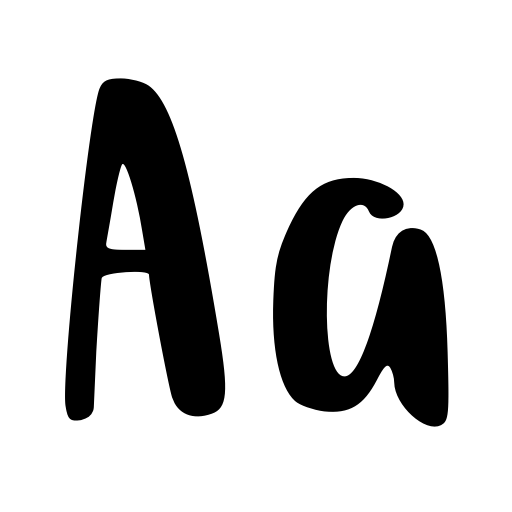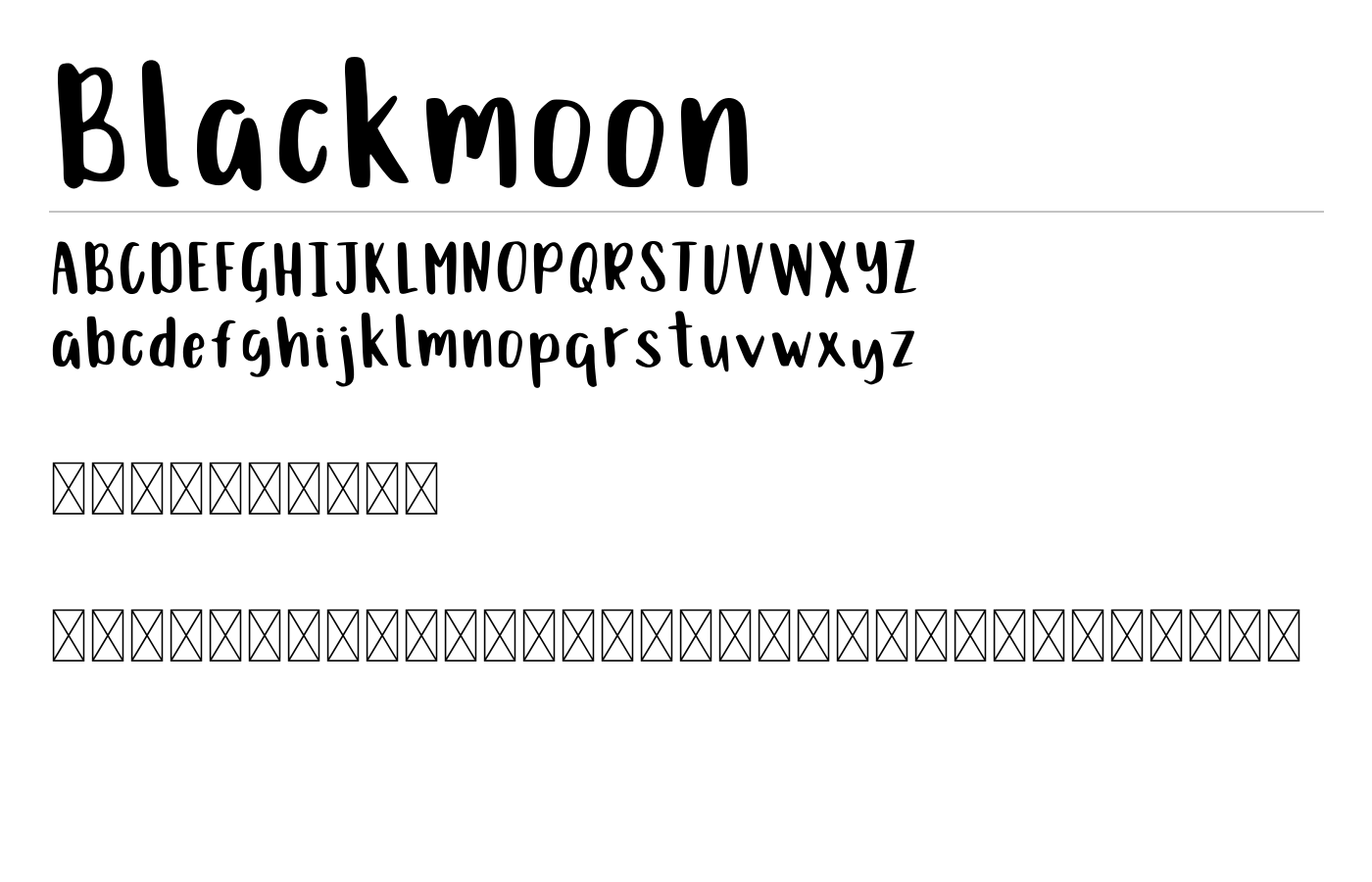
Blackmoon is a playful and friendly handwritten sans serif font with a casual, organic feel. It features rounded strokes with a consistent, medium weight and a slightly condensed width, making it approachable and easy to read. Ideal for children's books, informal branding, and creative projects, Blackmoon brings warmth and personality while maintaining clarity.
Blackmoon Font
About Blackmoon Font